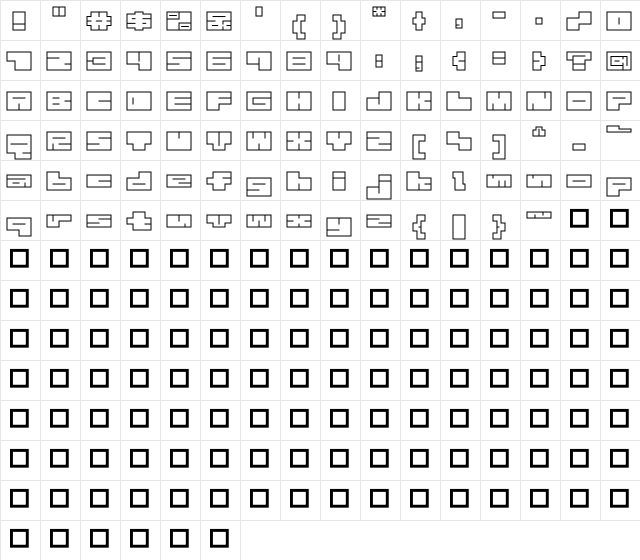
1B_MAZE-white Regular
Design Context for 1B_MAZE-white Typeface
1B_MAZE-white is a composed and adaptable typeface that performs quietly and consistently across a wide range of design contexts.